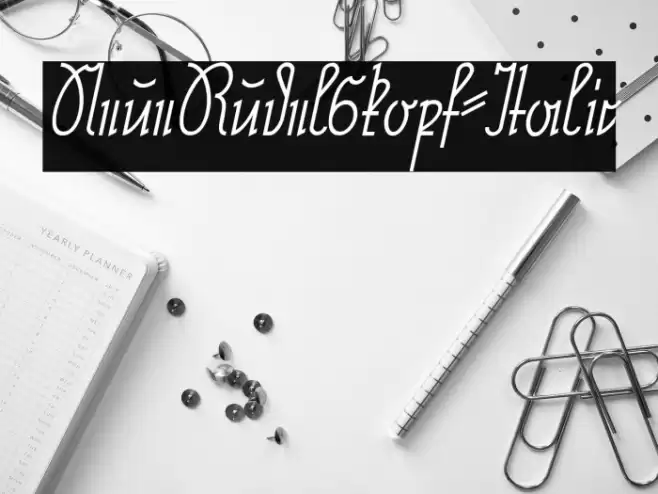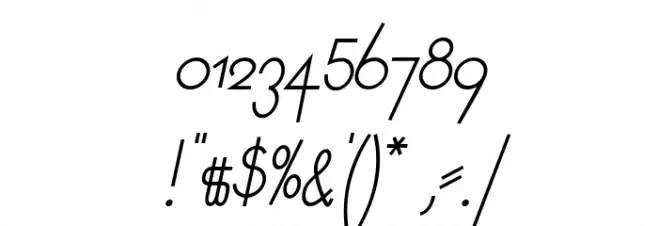
NeueRudelskopf-Italic Font
NeueRudelskopf-Italic Description
This font exhibits a distinct and elegant cursive style, characterized by its flowing and interconnected letterforms. The slanted, italicized appearance gives it a dynamic and sophisticated look, making it suitable for creative and artistic projects. The uppercase letters are bold and prominent, while the lowercase letters maintain a consistent fluidity. Numbers and special characters are designed to complement the overall aesthetic, ensuring a cohesive visual presentation. The font's unique style is both eye-catching and versatile, ideal for adding a touch of elegance to any design.
An elegant, italic cursive font with flowing, interconnected letterforms from Uncategorized fonts.
- Proposed Projects: Ideal for wedding invitations, greeting cards, artistic branding, and decorative headlines.
- Use Case: Headlines, Artistic branding, Invitations